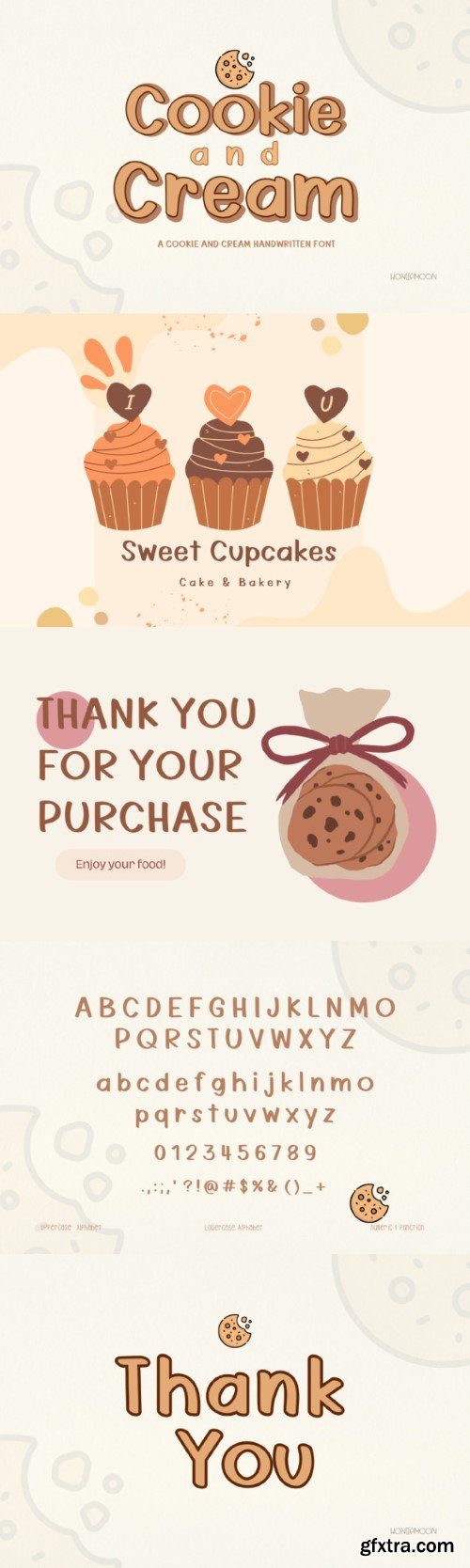
可可和奶油字体
Cookie and Cream is a fun display font, perfect for your favorite projects such as posters, flyers, social media, movie and book titles, invitations, stickers t-shirts, logos, advertisements, clothing, and so much more.